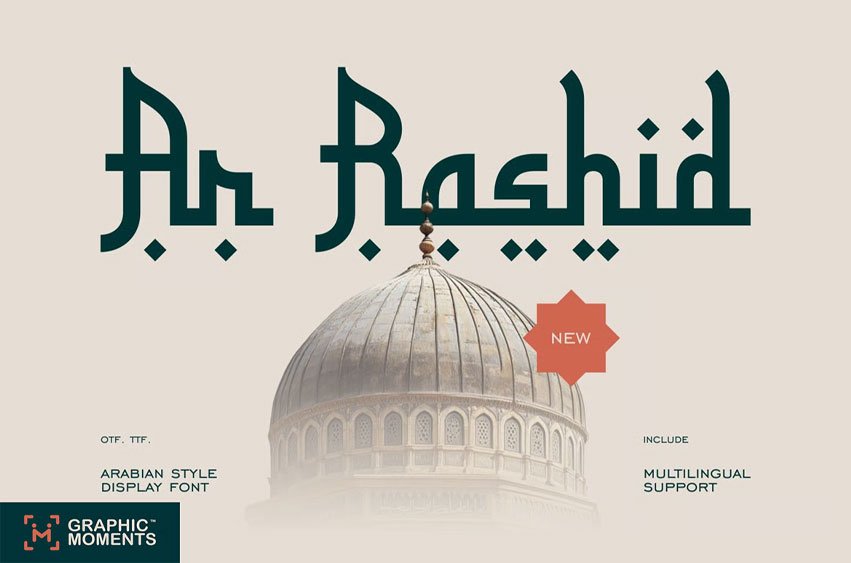
Ar Rasyid Font is a contemporary calligraphy font inspired by Arabic styles, meticulously crafted to cater to your Ramadan and Islamic-themed design needs. With its smooth, handwritten calligraphic style and modern touch, Ar Rashid features elegant curves, subtle ligatures, and a harmonious balance between Arabic and Latin scripts.
This font is perfect for a wide range of design projects, from invitations and posters to branding that requires an authentic yet artistic Arabic look. Its unique and legible design makes it an ideal choice for conveying religious and cultural messages beautifully.